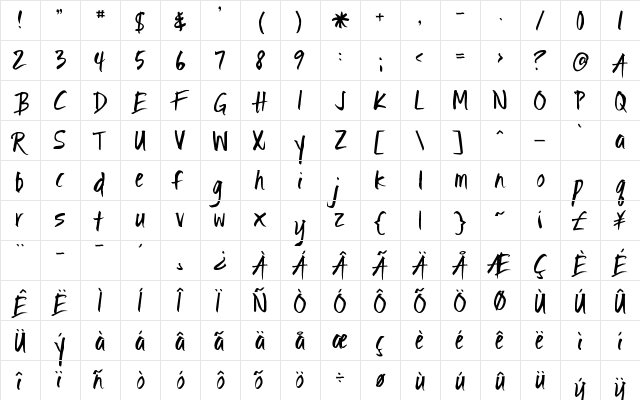
Ignite the Light Regular
| Foundry | Kimberly Geswein |
| Designer | Kimberly Geswein |
Design Context for Ignite the Light Typeface
Ignite the Light is a composed and adaptable typeface that performs quietly and consistently across a wide range of design contexts. Its slender proportions lend an understated elegance to any composition.